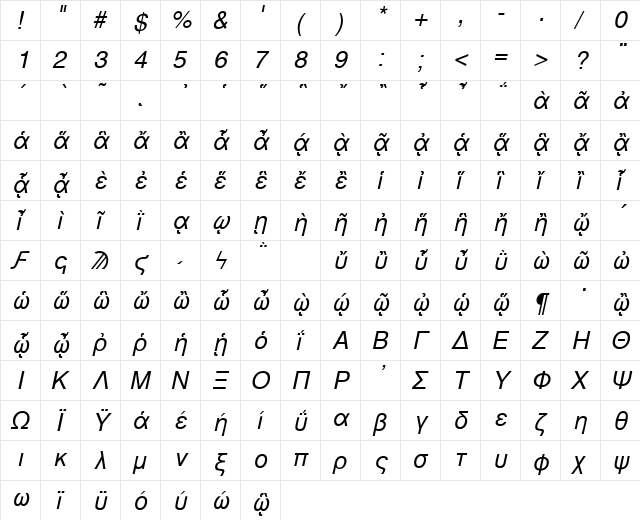
GreekSansAncientSSK Italic
Design Context for GreekSansAncientSSK Typeface
GreekSansAncientSSK is a composed and adaptable typeface that performs quietly and consistently across a wide range of design contexts. The dynamic lean of this cut emphasises speed and emphasis in any layout.
Pro Tip: Use GreekSansAncientSSK for emphasis, pull quotes, and subheadings where its slanted energy can add rhythm to the layout.